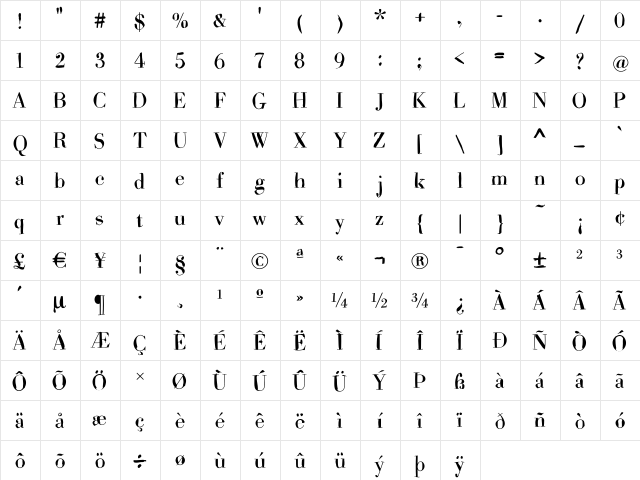
HasBodoniScribbled Regular
Design Context for HasBodoniScribbled Typeface
HasBodoniScribbled is a composed and adaptable typeface that performs quietly and consistently across a wide range of design contexts.